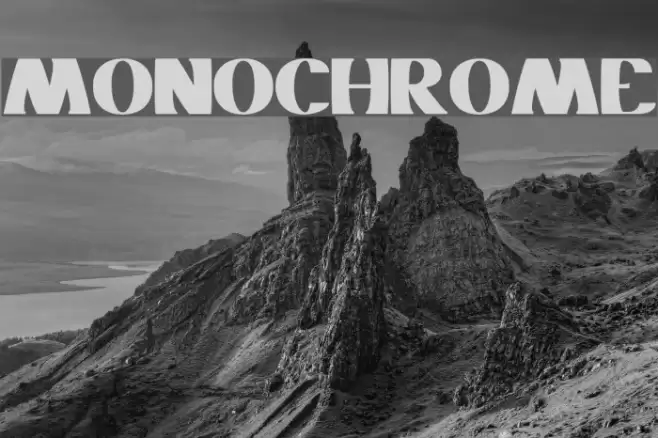
MONOCHROME Font
MONOCHROME Description
This font features a bold and striking design with a strong emphasis on geometric shapes and sharp angles. The characters are crafted with a unique blend of thick and thin strokes, creating a high contrast that draws attention. The uppercase letters exhibit a modern and edgy style, while maintaining readability. The overall appearance is both artistic and functional, making it suitable for various creative applications. The font's distinct style is ideal for projects that require a bold statement, such as posters, headlines, and branding materials.
A bold, geometric font with high contrast and sharp angles from Uncategorized fonts.
- Proposed Projects: Ideal for posters, headlines, branding, and any project needing a bold statement.